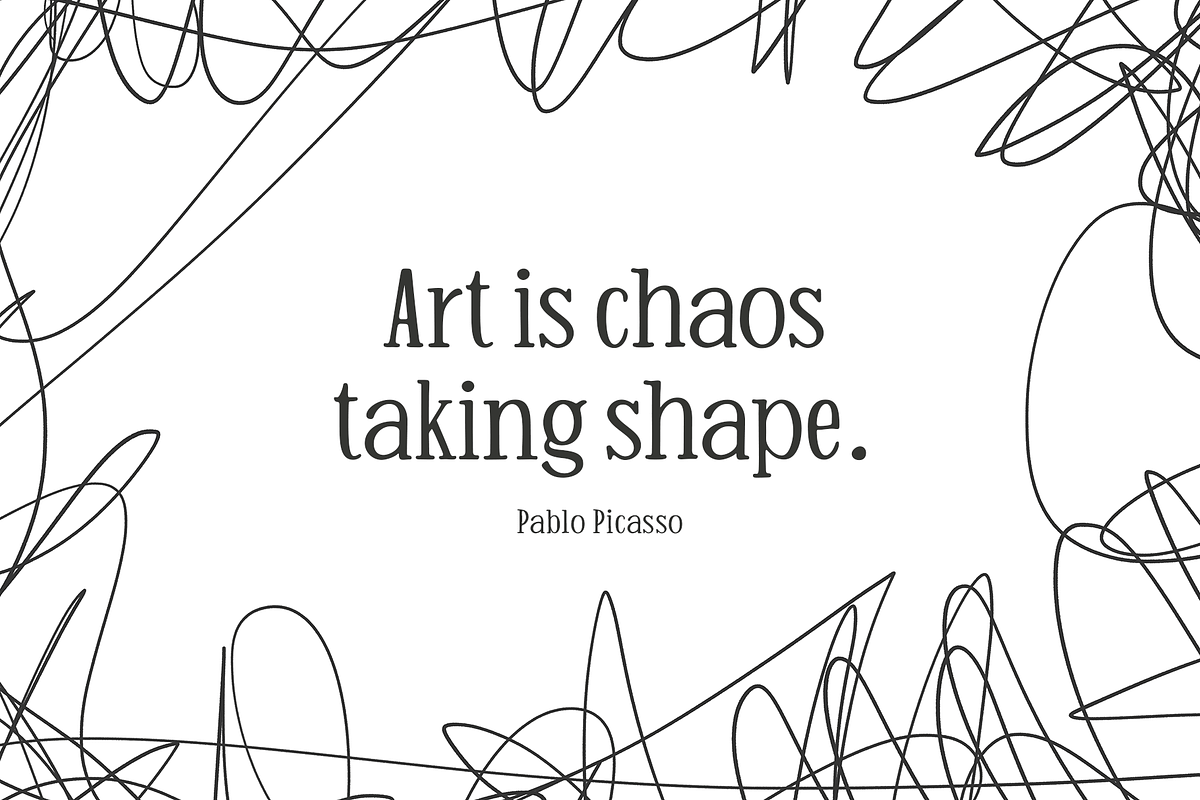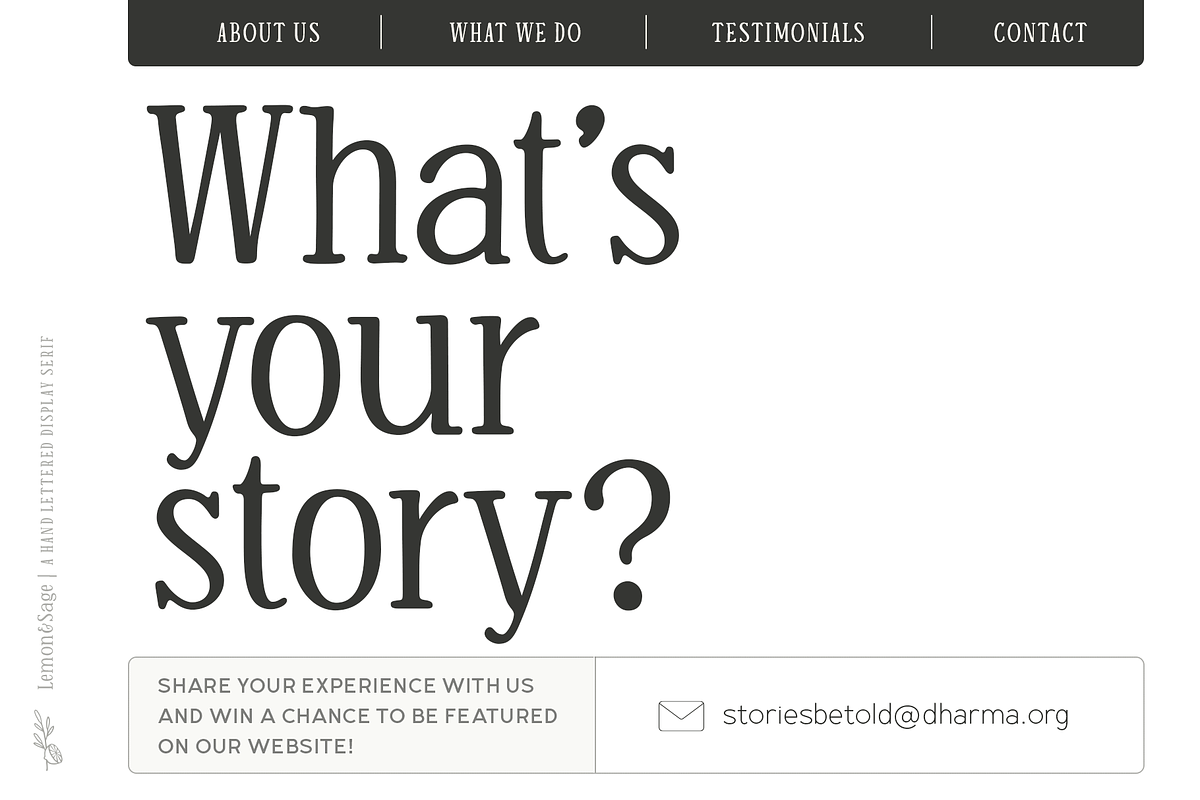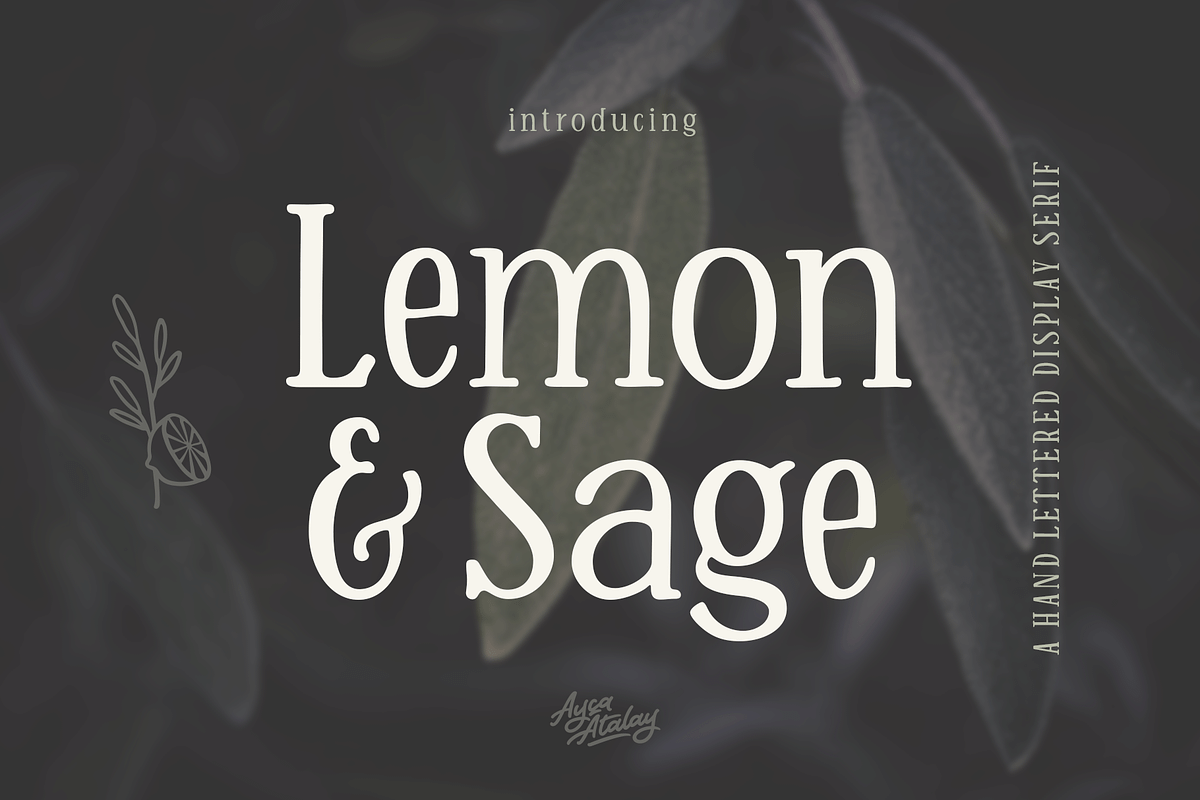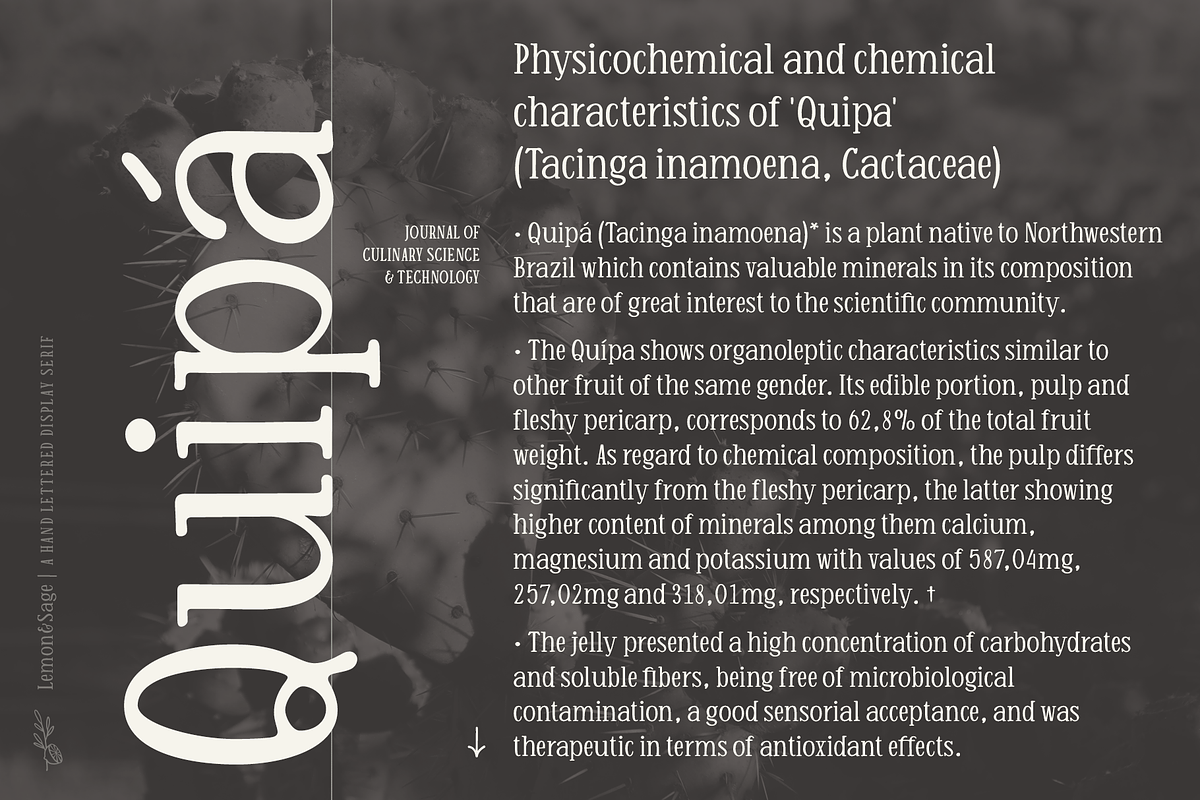
Lemon And Sage Display Serif Font
Lemon And Sage | A Handlettered Display Serif Font
Lemon And Sage is a charming handlettered display serif font with a high x-height. The condensed letterforms preserve the organic hand drawn look while still adhering to legible serif letterforms.
Lemon And Sage works exceptionally well as a display font and is still legible and neat in smaller sizes thanks to its x-height.